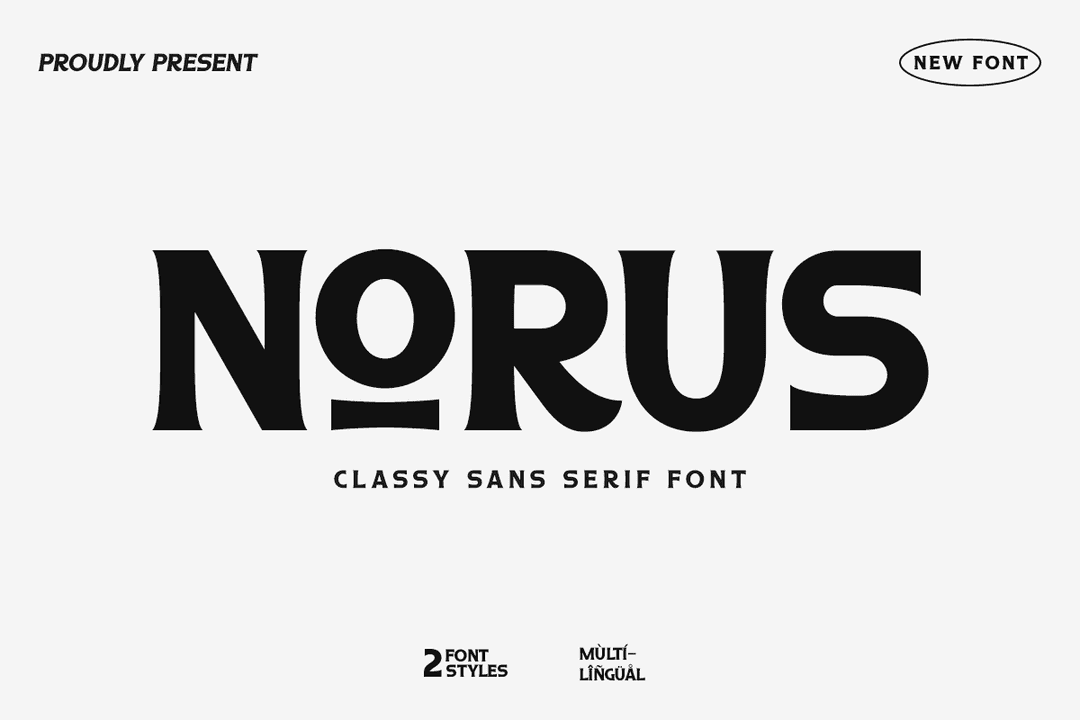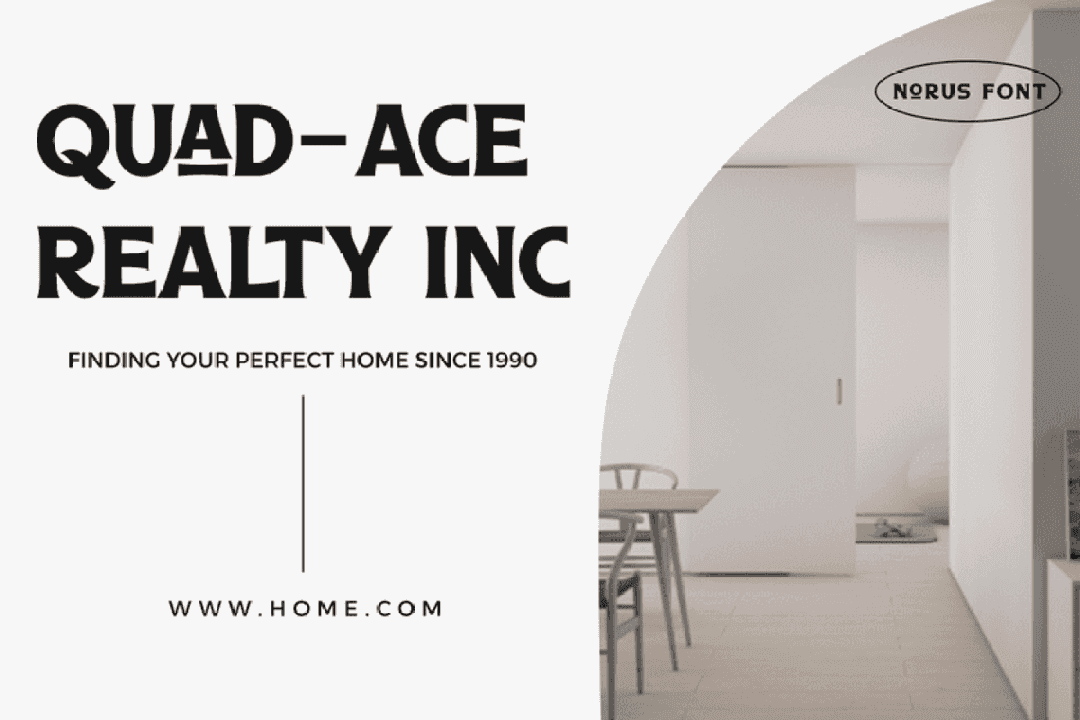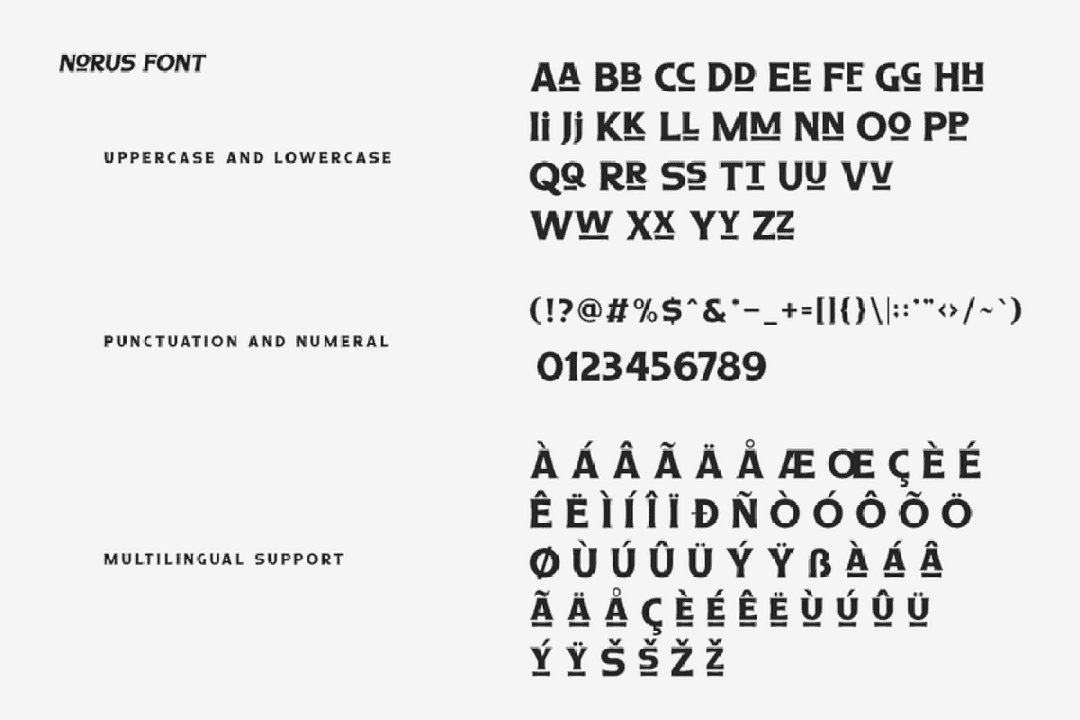
Norus is an awesome full-caps serif font with some lowercase letters featuring underscores – making it the ideal font choice for posters, magazines commercials, movie titles T-shirt designs logos quotes and many other applications! For designs to appear complete and professional add this font!